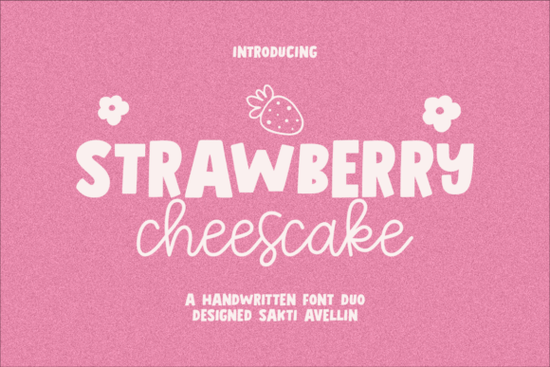
If you're looking for a font that feels both playful and personal, the Strawberry Chesscake Font might be just what your next project needs. Designed as a handwritten duo, it pairs a bold, chunky display style with a smooth, flowing script giving you two complementary looks in one package. Whether you're designing cupcake wrappers, birthday invitations, or social media graphics for a bakery, this font brings warmth and cheer without feeling overly polished or corporate.
What makes this font stand out is how naturally it mimics real handwriting. The bold version adds emphasis and fun, while the script offers elegance and movement. Together, they create visual contrast that’s easy to balance ideal for layered quotes, product labels, or even children’s apparel where personality matters more than perfection.
Who is this font best suited for?
The Strawberry Chesscake Font works especially well for creators who want their designs to feel handmade and approachable. That includes:
- Small food businesses think bakeries, dessert shops, or homemade jam vendors needing friendly packaging or signage.
- Print-on-demand sellers creating mugs, T-shirts, or greeting cards with uplifting messages.
- Crafters and hobbyists making party decor, scrapbook elements, or DIY gift tags.
- Digital designers building Instagram quote templates or Pinterest pins with a cozy, inviting vibe.
Because it includes both uppercase and lowercase characters, plus basic punctuation and stylistic alternates (depending on the software you use), it’s flexible enough for short headlines and longer phrases alike.
How does it compare to other handwritten fonts?
Not all script fonts strike the right balance between legibility and charm. Some lean too formal; others feel chaotic. Strawberry Chesscake sits comfortably in the middle it’s cheerful but not childish, fluid but not fussy.
If you’ve liked fonts like Homestead, which blends rustic warmth with clean lines, or Sublimate, known for its soft, modern curves, you’ll likely appreciate the organic rhythm of Strawberry Chesscake. It shares DNA with Like Magic in its whimsical bounce, though it’s bolder and more grounded. For those who enjoy minimalist single-line styles like Rainy Winter, this duo offers a fuller, more expressive alternative. And if you’ve used Sophia for elegant invitations, you might pair Strawberry Chesscake’s script with Sophia for contrast script for headers, delicate cursive for details.
Where can you actually use it?
- Bakery logo mockups and menu boards
- Custom cake toppers and cookie stamp designs
- Seasonal posters for spring markets or summer fairs
- Children’s book illustrations or activity sheets
- Motivational quote graphics for Etsy or social media
- Wedding welcome signs with a relaxed, non-traditional feel
One tip: because the bold version has thick strokes, avoid using it at very small sizes it’s meant to shine in headlines, logos, or large-format prints.
Getting the most out of the duo
To make your design feel cohesive, try these simple pairing strategies:
- Use the bold font for primary text (“Happy Birthday!”) and the script for supporting lines (“Made with love just for you”).
- Keep color palettes soft pastel pinks, creams, mint greens to match the font’s sweet aesthetic.
- Add subtle textures like watercolor washes or kraft paper backgrounds to enhance the handmade feel.
- Avoid overloading your layout; let the font’s personality carry the message with plenty of white space.
Remember, handwritten fonts work best when they feel intentional not like an afterthought. Choose Strawberry Chesscake when your message is warm, personal, and meant to connect emotionally.